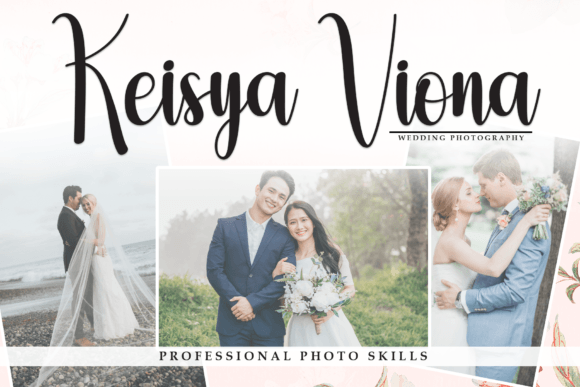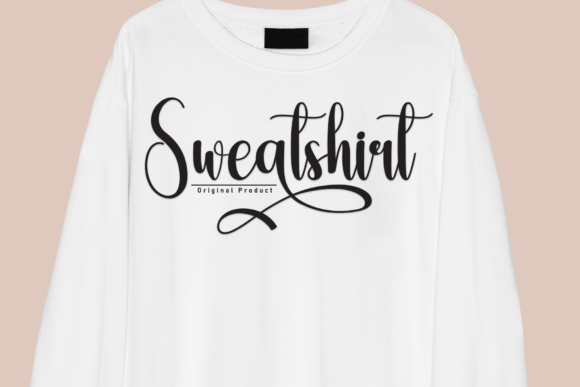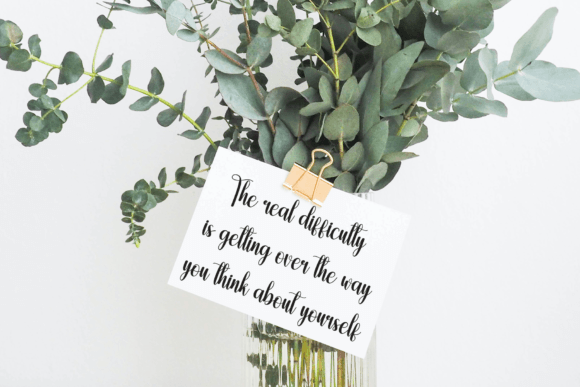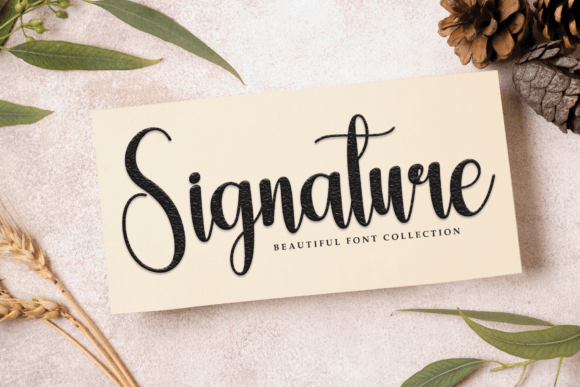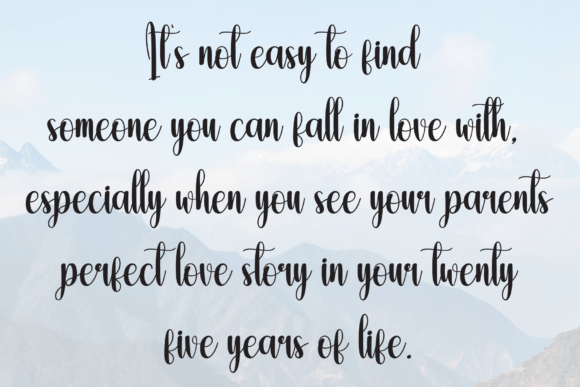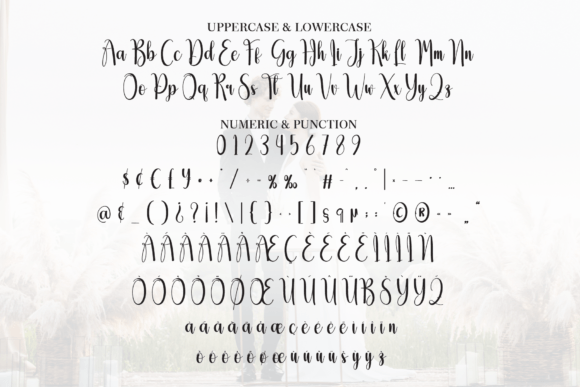
Introduction to Married Font
As a designer, there’s nothing quite like the rush of finding the perfect font for your next creative project. The thrill of scrolling through font libraries, searching for that one special style that captures the essence of your vision, is a feeling that never gets old. And then, just when you think you’ve found it, you come across a font that not only matches your aesthetic but also adds an extra layer of sophistication and elegance to your design. Welcome to the world of Married Font, a high-quality, versatile font that’s perfect for any creative project that requires a touch of class.
Whether you’re working on a wedding invitation, a social media post, or a product packaging design, Married Font is an excellent choice. Its unique style and transparent background make it easy to customize and integrate into your design. Plus, with a free download option available, you can access this valuable design resource without breaking the bank. As a designer, you know how important it is to have a reliable font that can elevate your work and make it stand out from the crowd.
Key Features of Married Font
- High-quality vector design with a transparent background, ideal for creative projects
- Designed to be highly legible, with clear and crisp lettering at sizes ranging from 12pt to 72pt
- Resolution-independent, ensuring that the font remains sharp and clear at any resolution, from 72dpi to 300dpi
- Perfect for use in a variety of creative projects, including wedding invitations, event branding, and more
Honest Review: Married Font
I recently came across the Married Font, and I must say it’s a high-quality design resource that caught my attention. As a designer, I’m always on the lookout for unique and creative fonts to elevate my projects.
Here are some things that work well with the Married Font: ✨
- It has a beautiful, elegant script style that’s perfect for weddings, anniversaries, or any romantic occasion.
- The transparent background makes it easy to use with any design element, from photos to illustrations.
However, I did notice a few limitations with the Married Font: ⚠️
- The font only comes in a few weights, which may limit its versatility in certain design projects.
- The ligatures can be a bit wonky at times, which may require some tweaking to get just right.
Overall, I think the Married Font is a great addition to any designer’s toolkit. While it may have some limitations, its unique style and high-quality design make it a valuable resource for creative projects. With a little tweaking and experimentation, I’m confident that designers will be able to get the most out of this beautiful font.
Tips for Getting the Most Out of Married Font
For the best results, use Married Font in conjunction with a transparent background to create a sleek and modern design. You can also experiment with different font sizes, colors, and styles to add depth and interest to your project.
Married Font is a popular design resource for various creative projects, including wedding invitations, baby shower decorations, and romantic social media graphics. Its elegant and sophisticated design makes it an ideal choice for any occasion that requires a touch of love and romance.
Alternatives to Married Font
Compared to Married Font, Great Vibes Font has a more whimsical and romantic feel, making it ideal for projects that require a softer, more feminine look.
Is Married Font suitable for designs with transparent backgrounds?
Yes, Married Font is designed with a transparent background, making it perfect for creative projects that require a clean and minimalist look. The font’s transparent background allows for seamless integration with other design elements, giving you more flexibility in your design workflow.